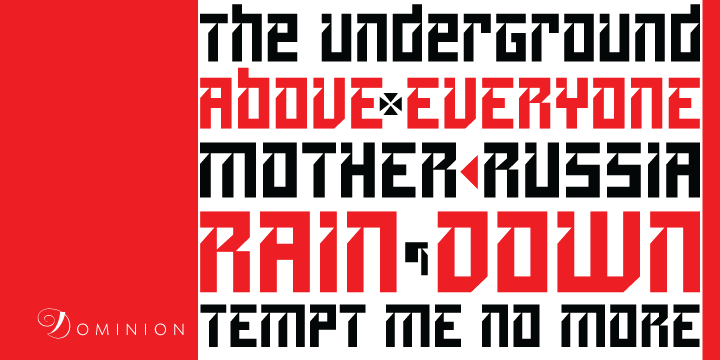
Dominion
Dominion is a novelty font family. This typeface has two styles and was published by Canada Type.
Dominion was based on an early 1970s film type called Lampoon, and named after an edgy 1980s goth-rock song by the Sisters of Mercy.
Dominion’s severely geometric shapes are a strange cross between early Bauhaus minimalism and later sharp square faces used for instance in Soviet propaganda posters. While maintaining the strong confidence of the main font, the italic gives off a strong hint of a race car decal appearance.
Both styles of Dominion contain an extensive character set that includes support for Central and Eastern European languages, Turkish, Baltic, Celtic, Maltese and Esperanto. A few alternate characters are also included in the character map.